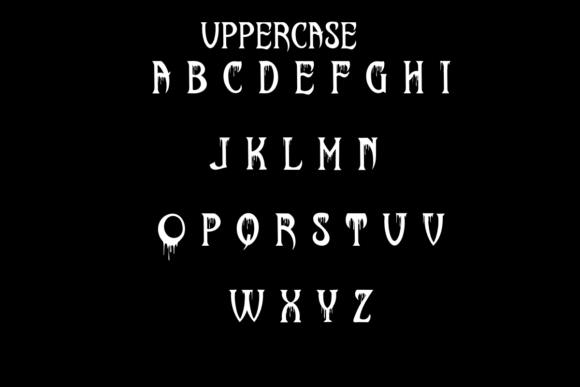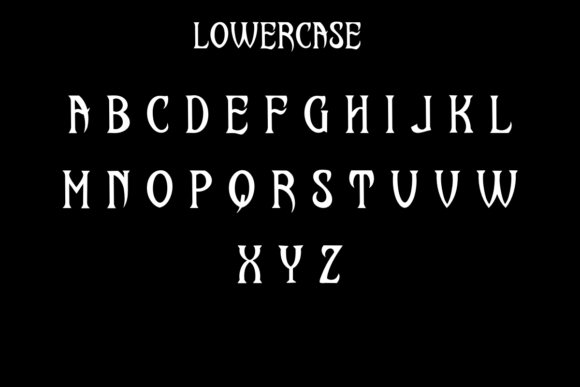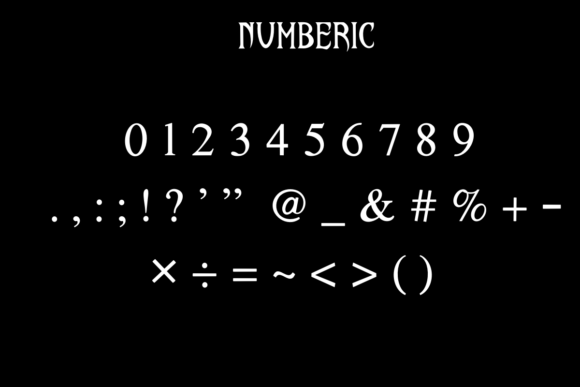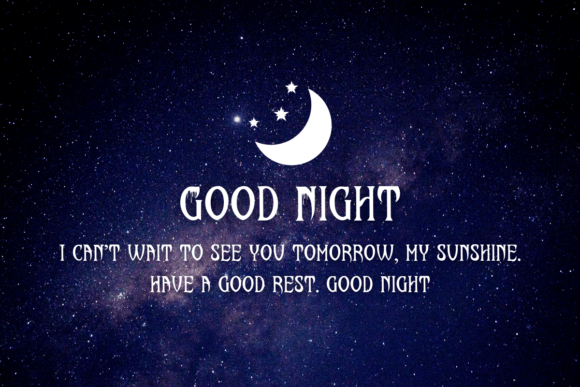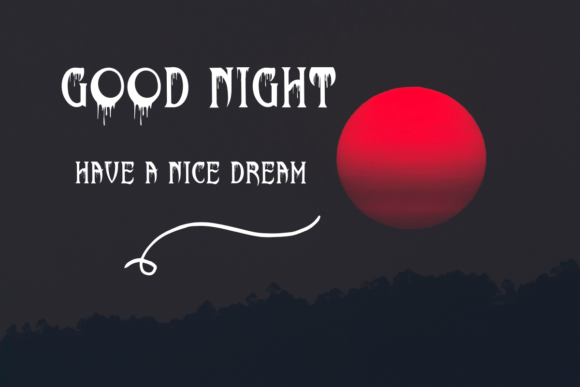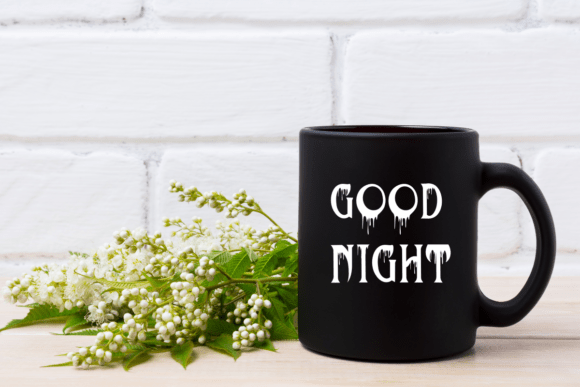
The Blood Moon Font: A Spooky Addition to Your Design Arsenal
I’ll never forget the time I was working on a Halloween-themed project for a client, and I just couldn’t find the right font to set the tone. The design was almost complete, but it was missing that special something to make it truly terrifying. That’s when I stumbled upon the Blood Moon font, and let me tell you, it was love at first sight! 💀
The Blood Moon font is a cool, spooky display font that will give you the creeps. Its unique design makes it perfect for Halloween or horror-themed projects, and it’s sure to make an impact. In this article, I’ll share my experience with the Blood Moon font, its features, and how to use it on different platforms.
• ✨ Unique and creepy design that’s perfect for horror-themed projects
• ✅ Easy to read, even in large sizes
• 💡 Supports OpenType features, glyphs, and stylistic alternates
• 🎃 Great for creating eye-catching titles, headings, and posters
While the Blood Moon font is amazing, there are a few things to keep in mind:
• 🤔 Some characters may not work well in smaller sizes, so it’s best to use it for headlines or titles
• ⚠️ Limited language support, so it’s best to use it for English or similar languages
The Backstory Behind Blood Moon Font
The Blood Moon font was designed by a team of creatives who wanted to create a unique and terrifying font for horror-themed projects. Inspired by the eerie glow of a blood moon, the font features intricate details and a haunting style that’s sure to send chills down your spine.
Q: What is the Blood Moon font best used for?
A: The Blood Moon font is best used for Halloween or horror-themed projects, such as posters, titles, and headings.
Q: Is the Blood Moon font available in different languages?
A: The Blood Moon font has limited language support, so it’s best to use it for English or similar languages.